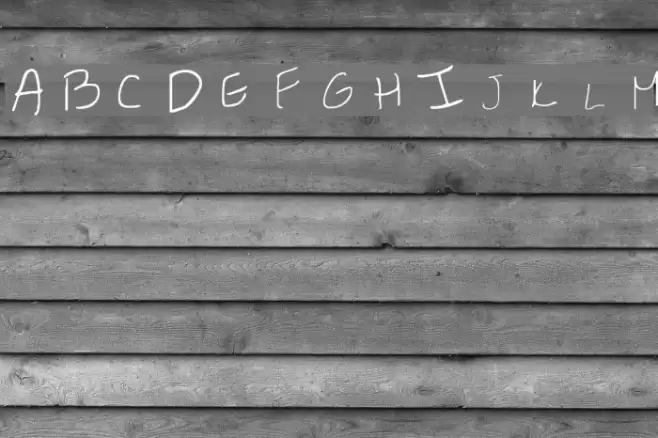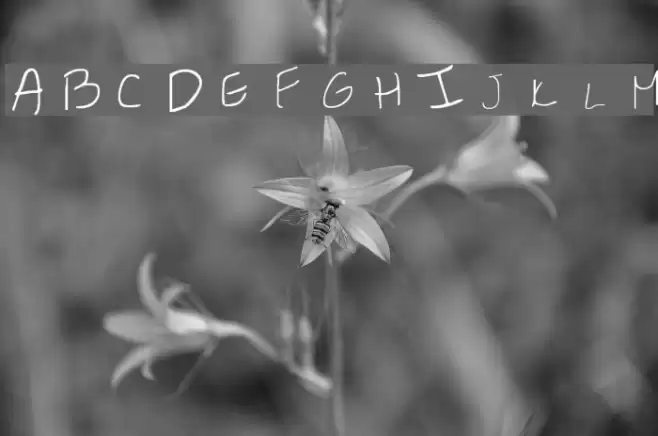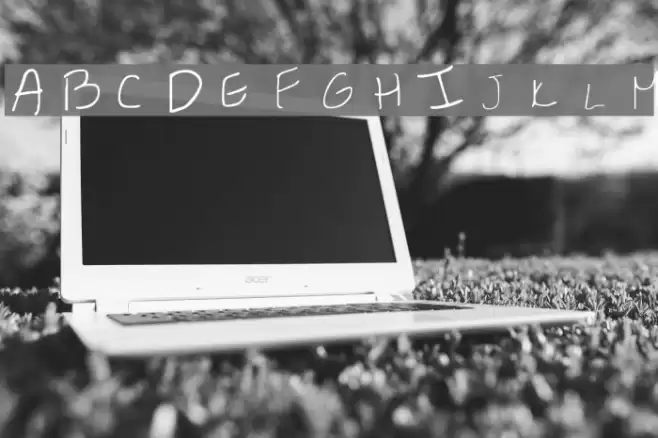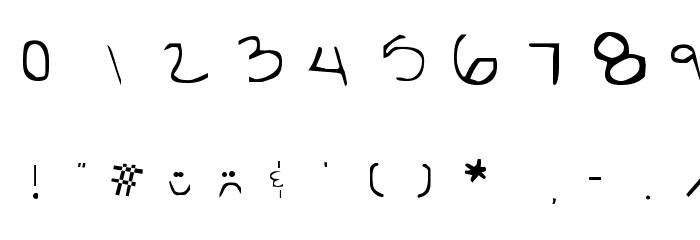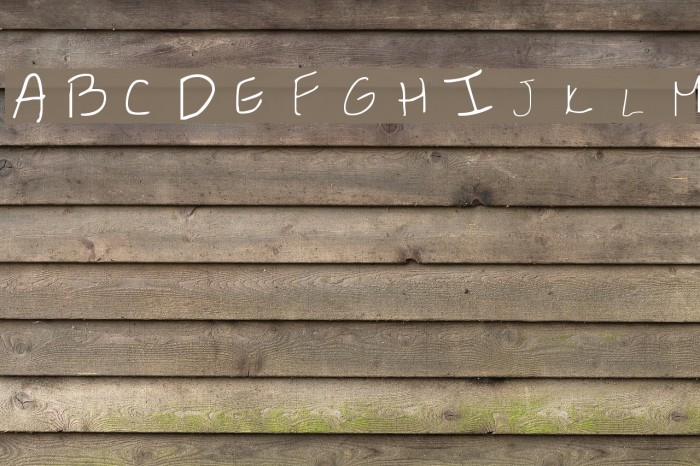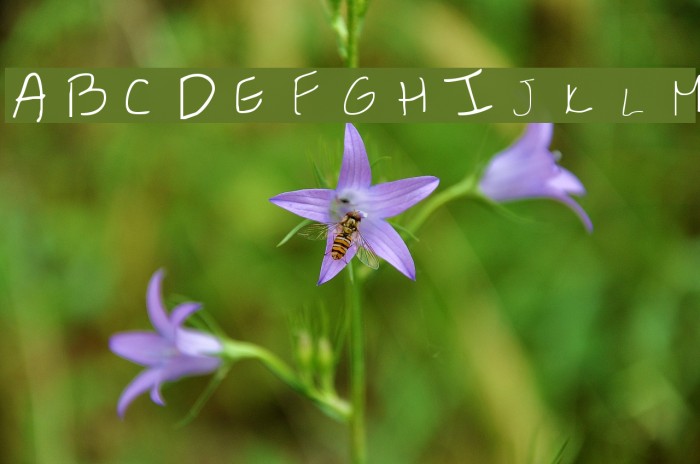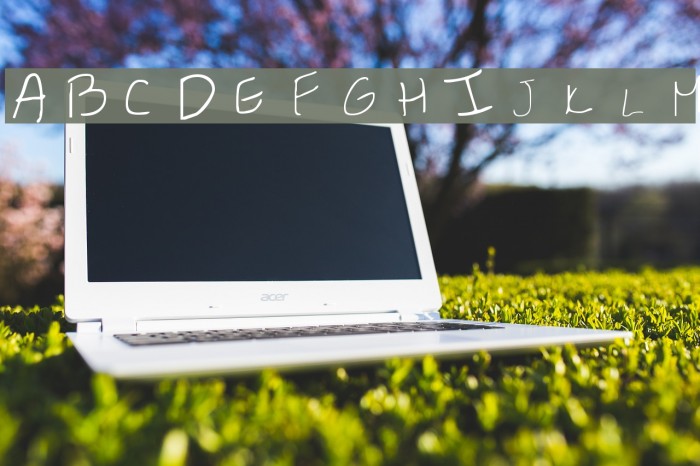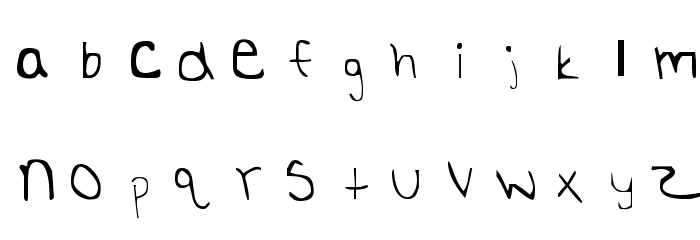
Britts Hand Font
Britts Hand Description
This font exhibits a playful and informal handwritten style, characterized by its irregular and whimsical letterforms. The uppercase letters are slightly uneven, with varying stroke widths that give a casual and friendly appearance. The lowercase letters maintain a similar playful aesthetic, with some characters featuring exaggerated loops and curves. The numerals are quirky and distinct, matching the overall informal tone of the font. Special characters are creatively designed, adding to the font's unique personality. This font is ideal for projects that require a personal touch or a sense of whimsy.
A playful, informal handwritten font with whimsical letterforms from Quirky fonts.
- Proposed Projects: Greeting cards, children's books, casual invitations, and playful branding.
- Overall Style: Casual, Playful
- Use Case: Headlines, Informal text, Creative projects